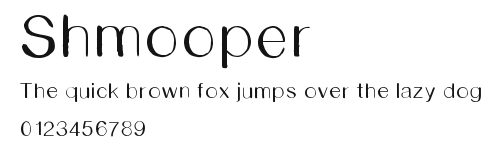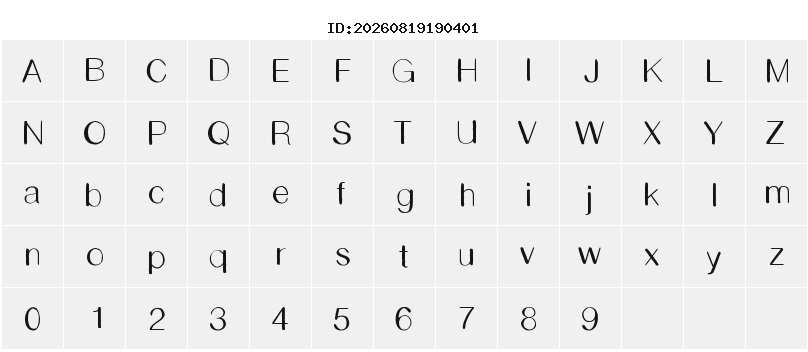
• Font Name: Shmooper
• Full Font Name: Shmooper
• PostScript Name: Shmooper
About Shmooper.ttf
Shmooper.ttf is a modern, elegant sans-serif font designed for ultimate readability and visual harmony. Perfect for branding, headlines, web design, and print materials.